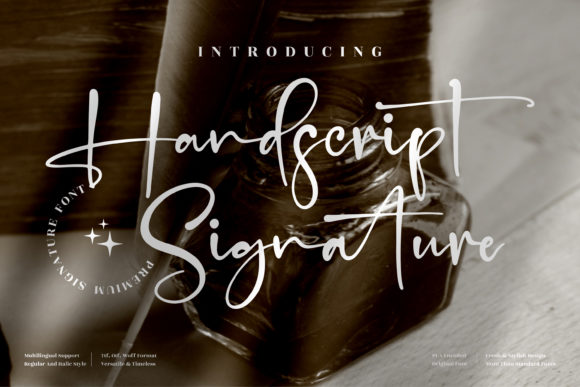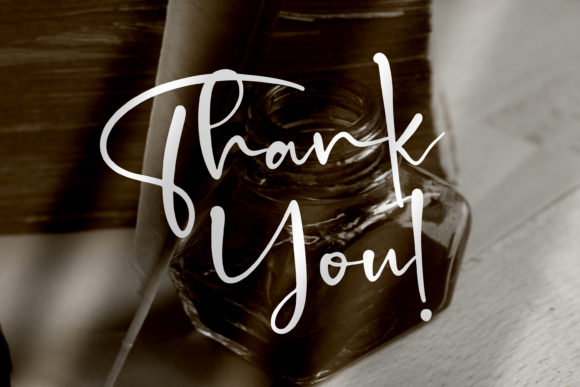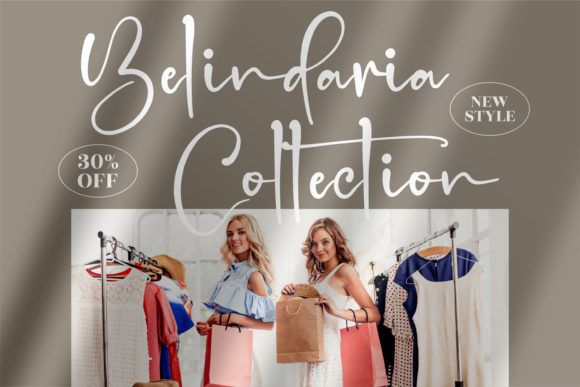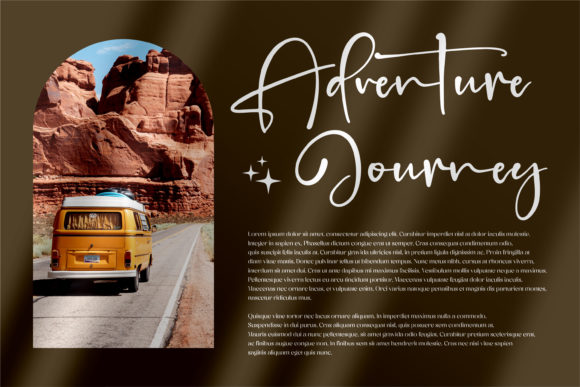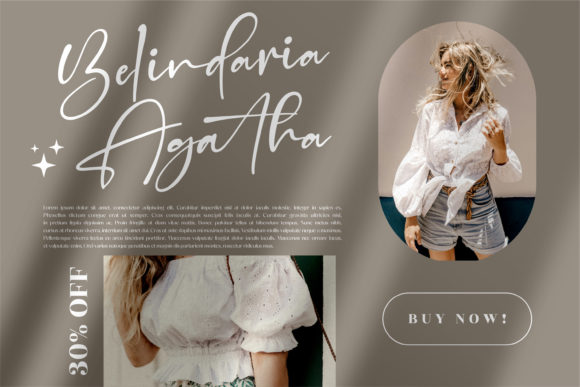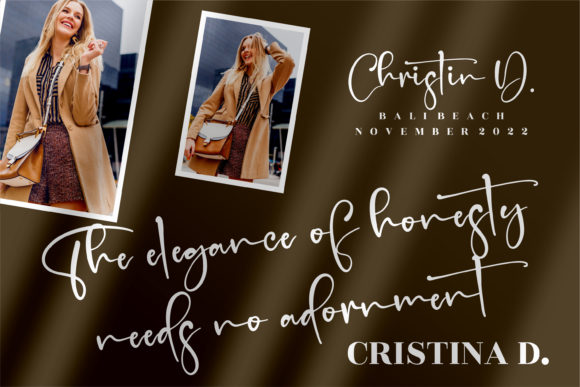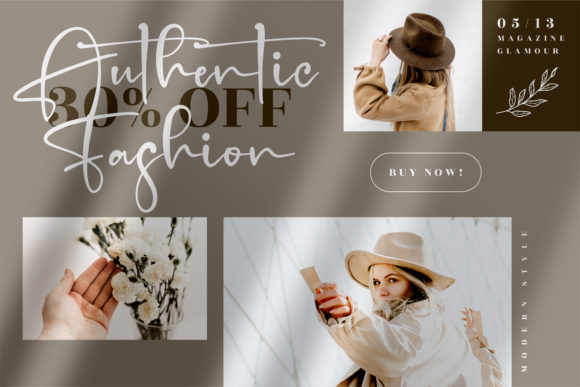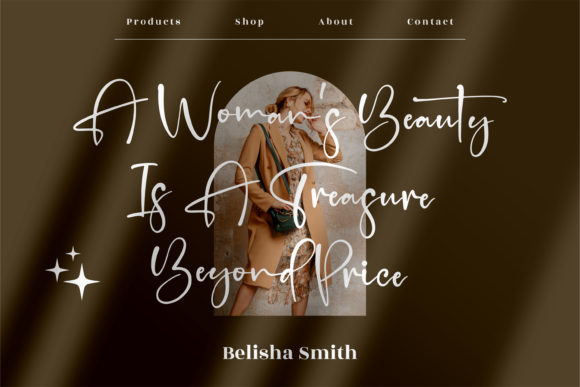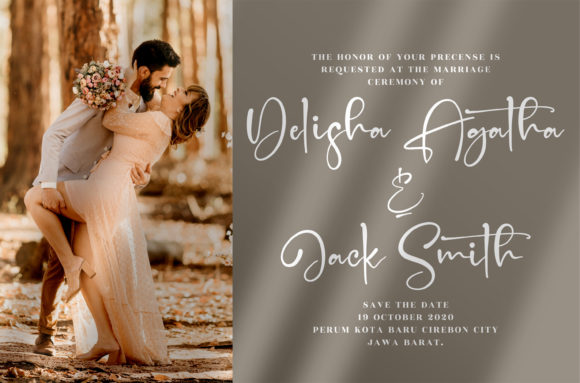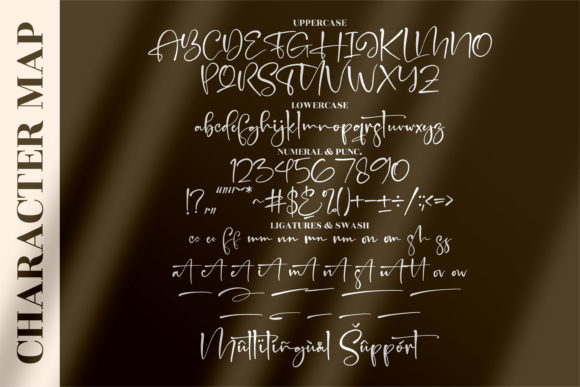
Handscript Signature Font
About Handscript Signature Font
Handscript Signature is a magical script font carefully created with a touch of elegance. Trendy and stylish, this font will elevate each of your creations. This font is PUA encoded which means you can access all of the glyphs and swashes with ease!